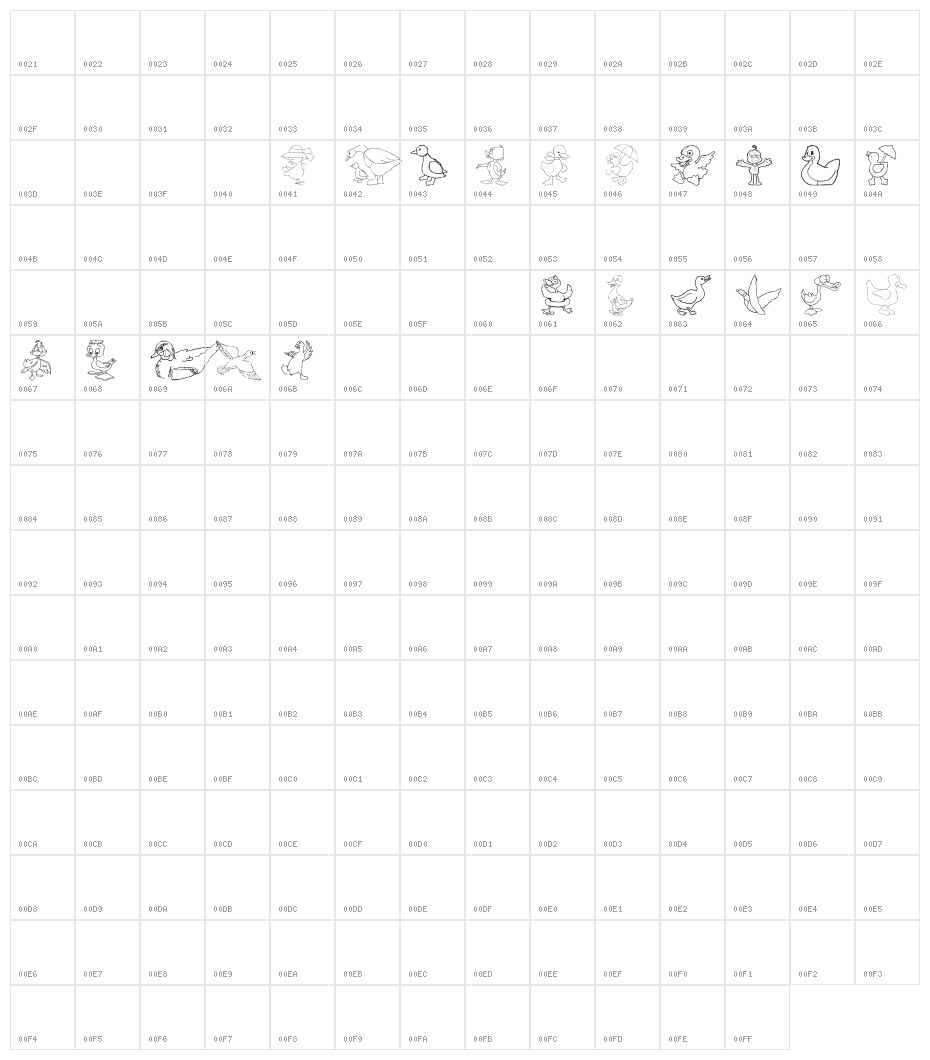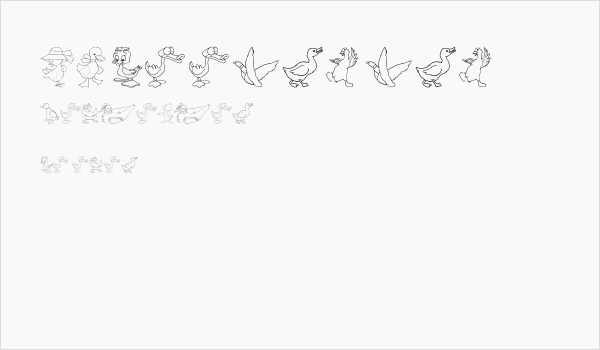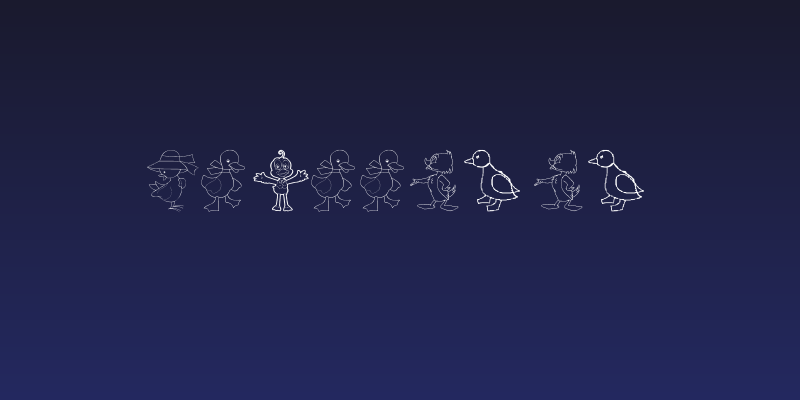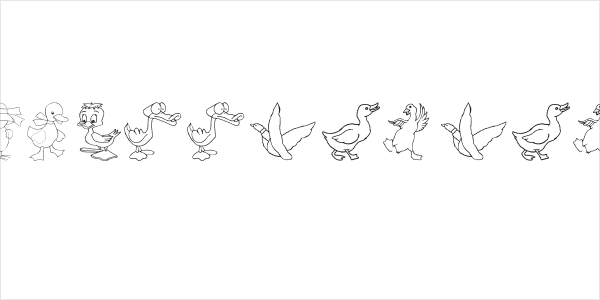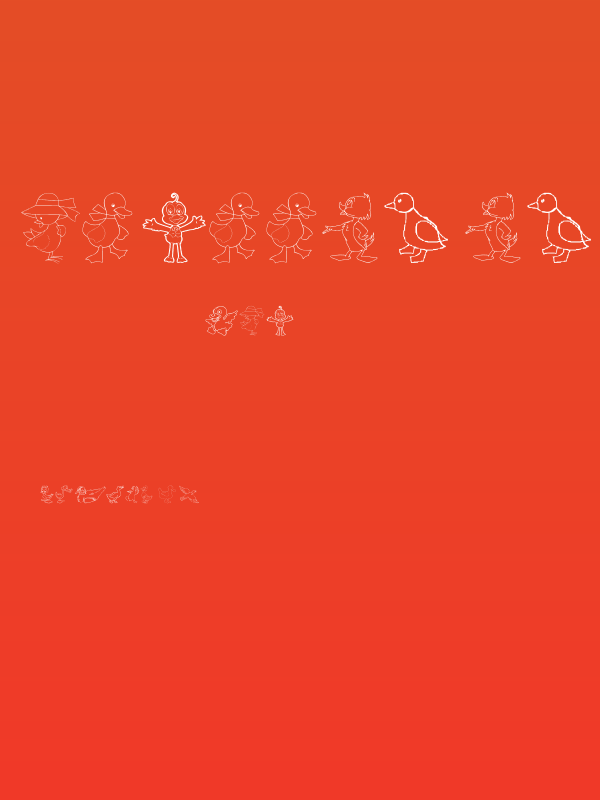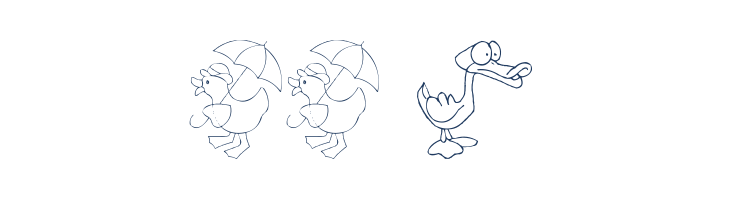
AEZ here ducky, ducky Font
| Estilo general | Playful |
| Caso de uso | Headlines, Logos, Creative projects |
| Proyectos propuestos | Ideal for children's books, playful branding, party invitations, and creative designs. |